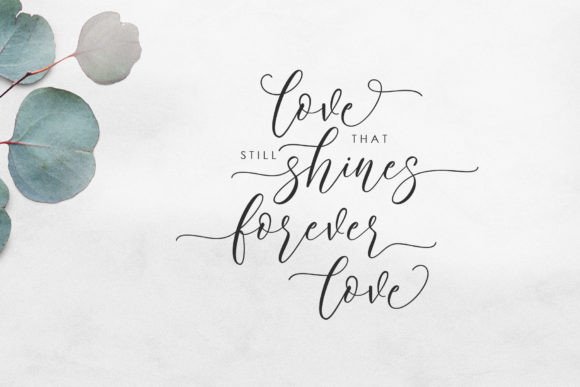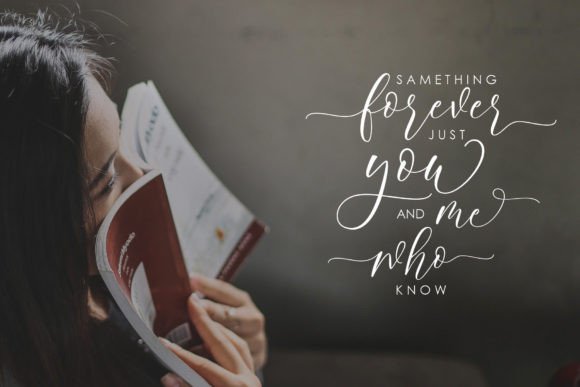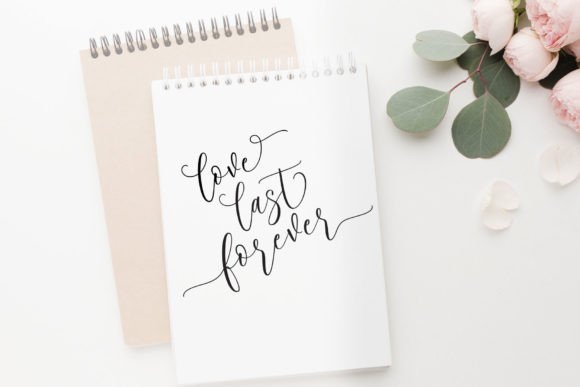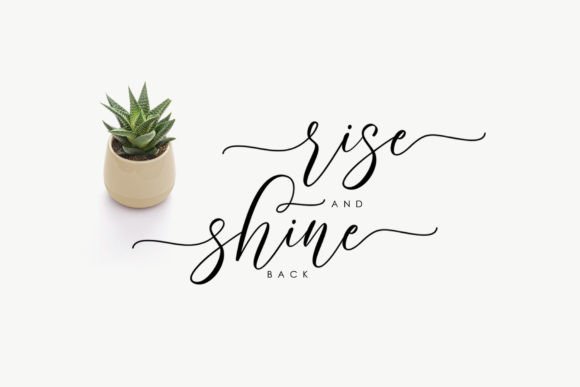
Introduction to Moula Font
Imagine you’re working on a high-end wedding invitation design, and you’re struggling to find the perfect font to convey elegance and sophistication. You’ve scrolled through countless design resources, but nothing seems to capture the essence you’re looking for. This is where Moula Font comes in – a stunning calligraphy script font designed to elevate your creative project to new heights.
Moula Font is a valuable addition to any designer’s toolkit, offering a high-quality, elegant touch that’s perfect for titles, signatures, logos, and more. With its PUA encoded feature, accessing all the glyphs and swashes is a breeze, making it a must-have for any creative endeavor. Whether you’re working on a branding project or a greeting card design, Moula Font is sure to leave a lasting impression. And the best part? You can download it for free, complete with a transparent background, making it easy to integrate into your design.
Moula Font
• High-quality design resource ideal for creative projects, offering a unique aesthetic.
• Designed with a modern and elegant style, making it suitable for a wide range of creative projects.
• Includes a comprehensive character set, including uppercase and lowercase letters, numbers, and punctuation marks.
Honest Review: Moula Font
I recently stumbled upon the Moula Font, and I must say it’s a fantastic addition to any designer’s toolkit. As a high-quality design resource, Moula Font offers a wide range of creative possibilities for any project.
What works well: ✨ The font is incredibly versatile, making it suitable for both digital and print projects. The clean and modern design aesthetic of the font makes it perfect for branding, marketing materials, and even web design. Additionally, the transparent background feature is a great bonus, allowing for seamless integration with any design.
⚠️ One limitation of the Moula Font is that it may not be suitable for certain design projects that require a more traditional or vintage look. However, for modern and minimalist designs, Moula Font is an excellent choice.
Overall, I’m thoroughly impressed with the Moula Font. Its high quality, versatility, and transparency make it a valuable design resource for any creative project. Whether you’re a seasoned designer or just starting out, Moula Font is definitely worth checking out.
Moula Font
Using Moula Font in Design Applications
The Moula Font is ideal for use in a variety of creative projects, including:
• Business cards and letterheads
• Branding and logo designs
• Infographics and data visualizations
• Editorial and magazine designs